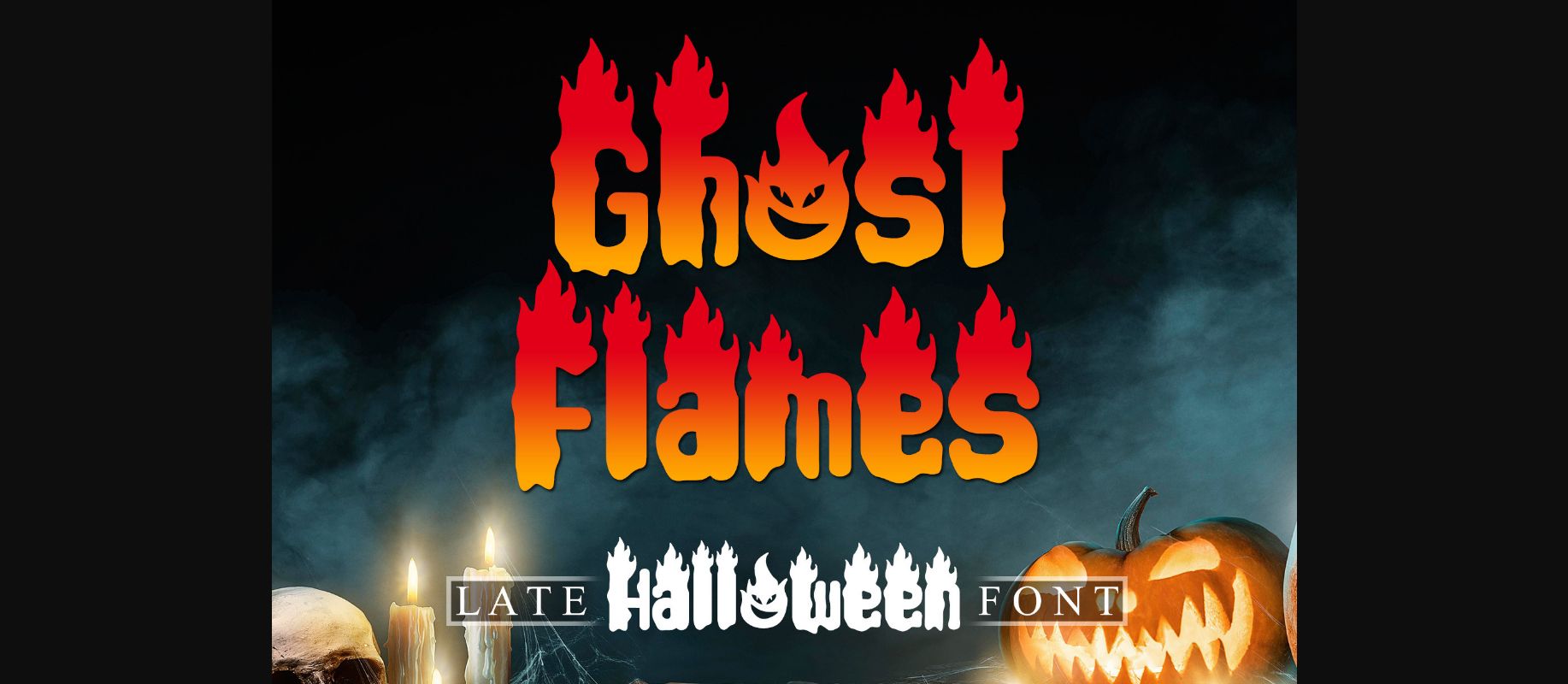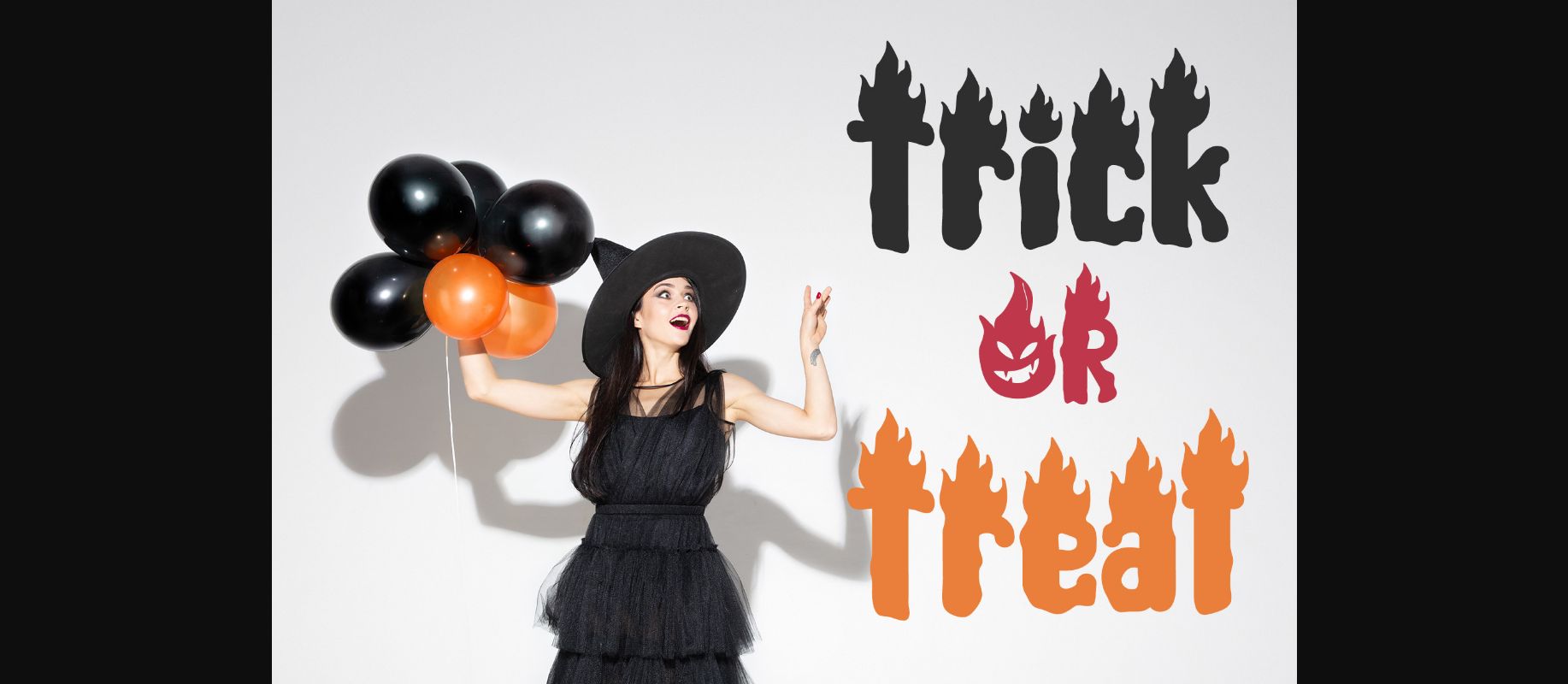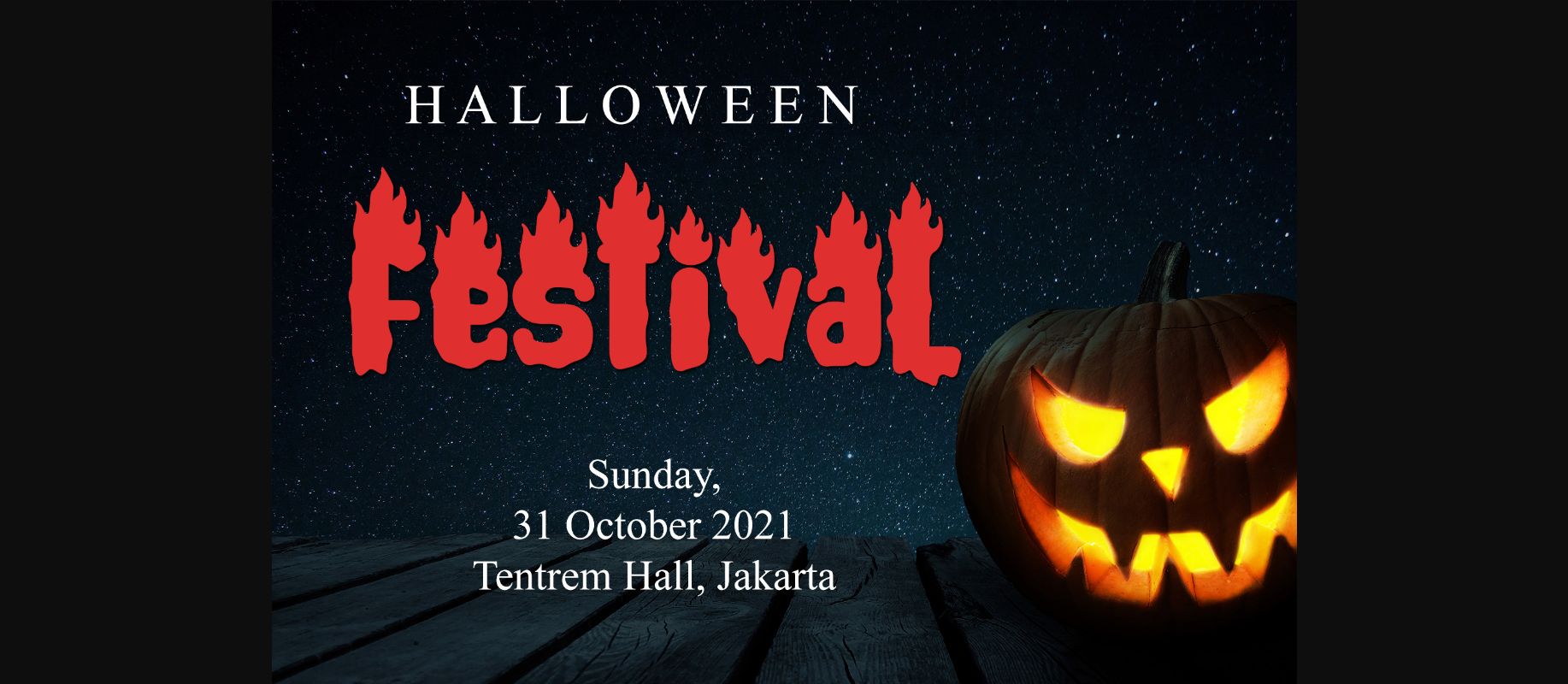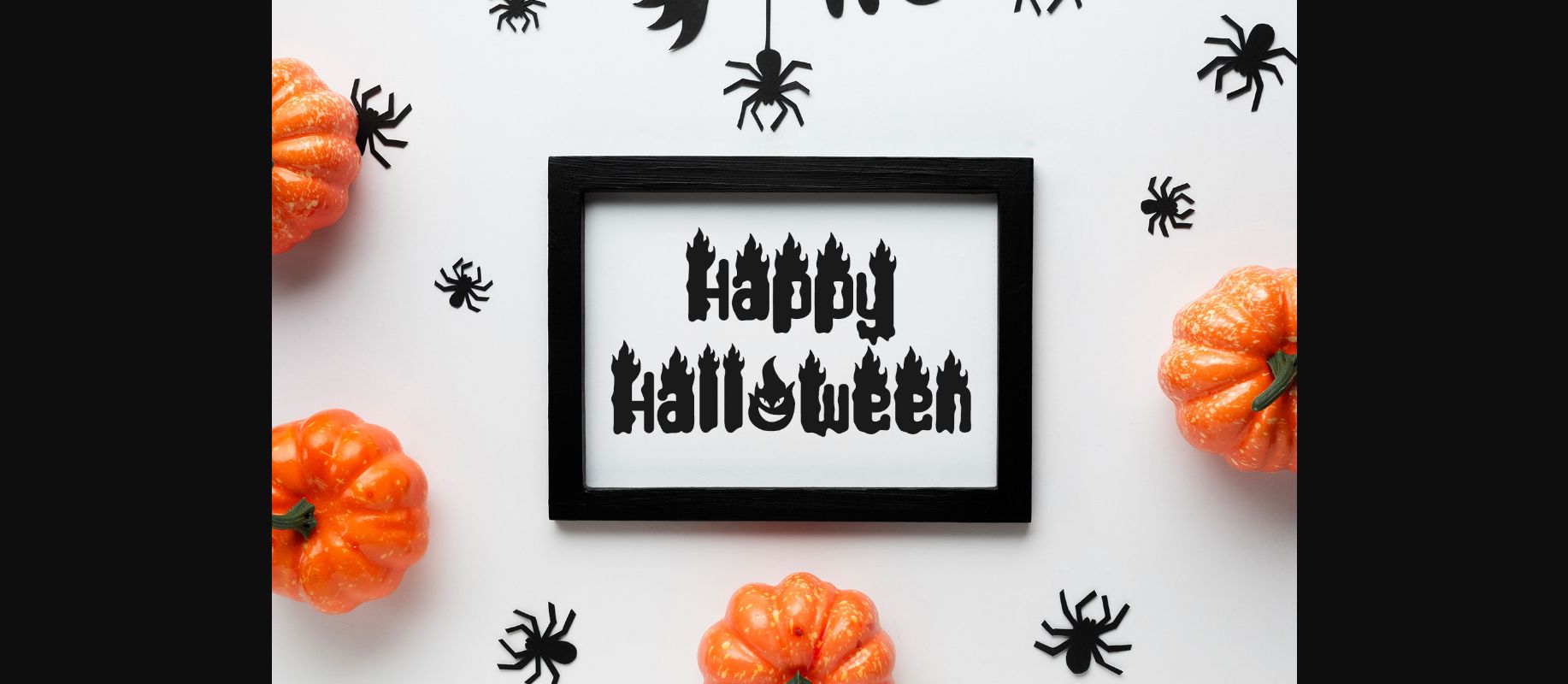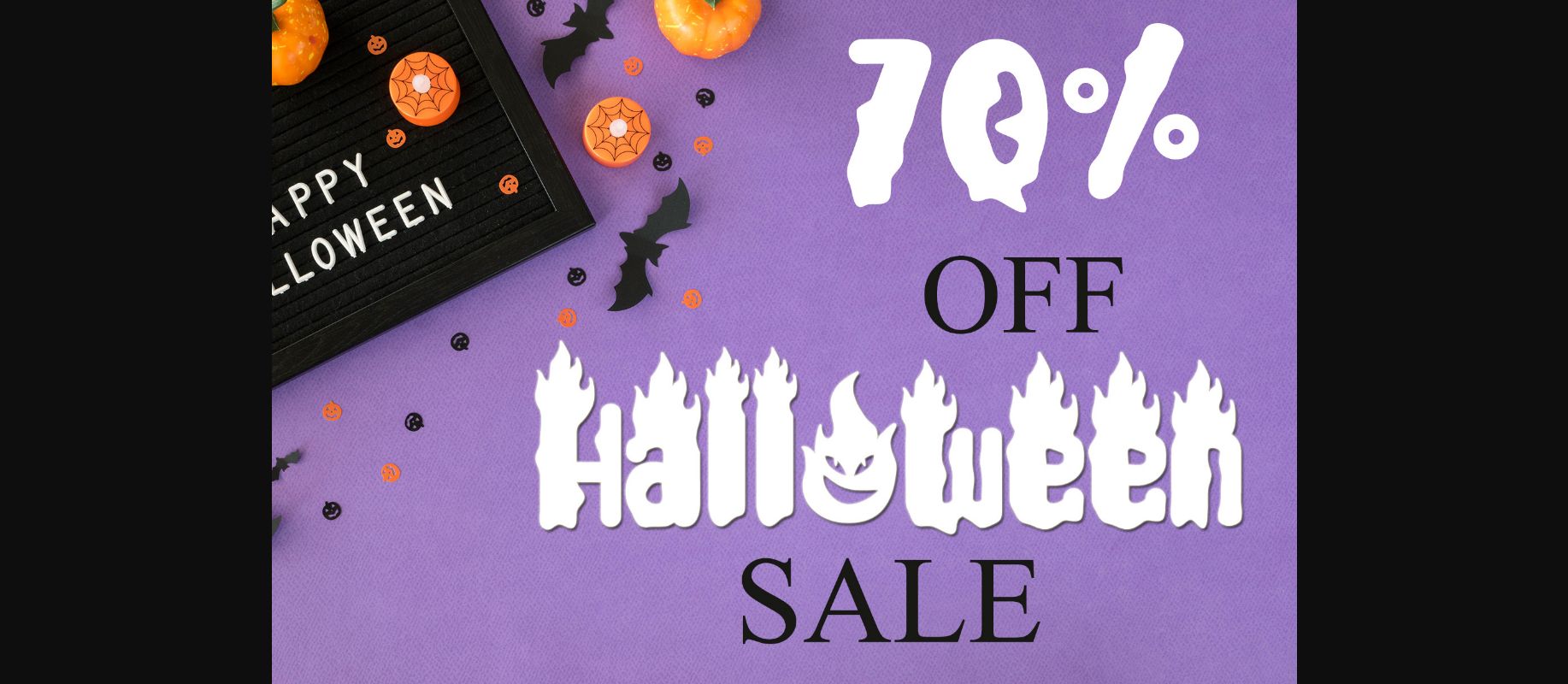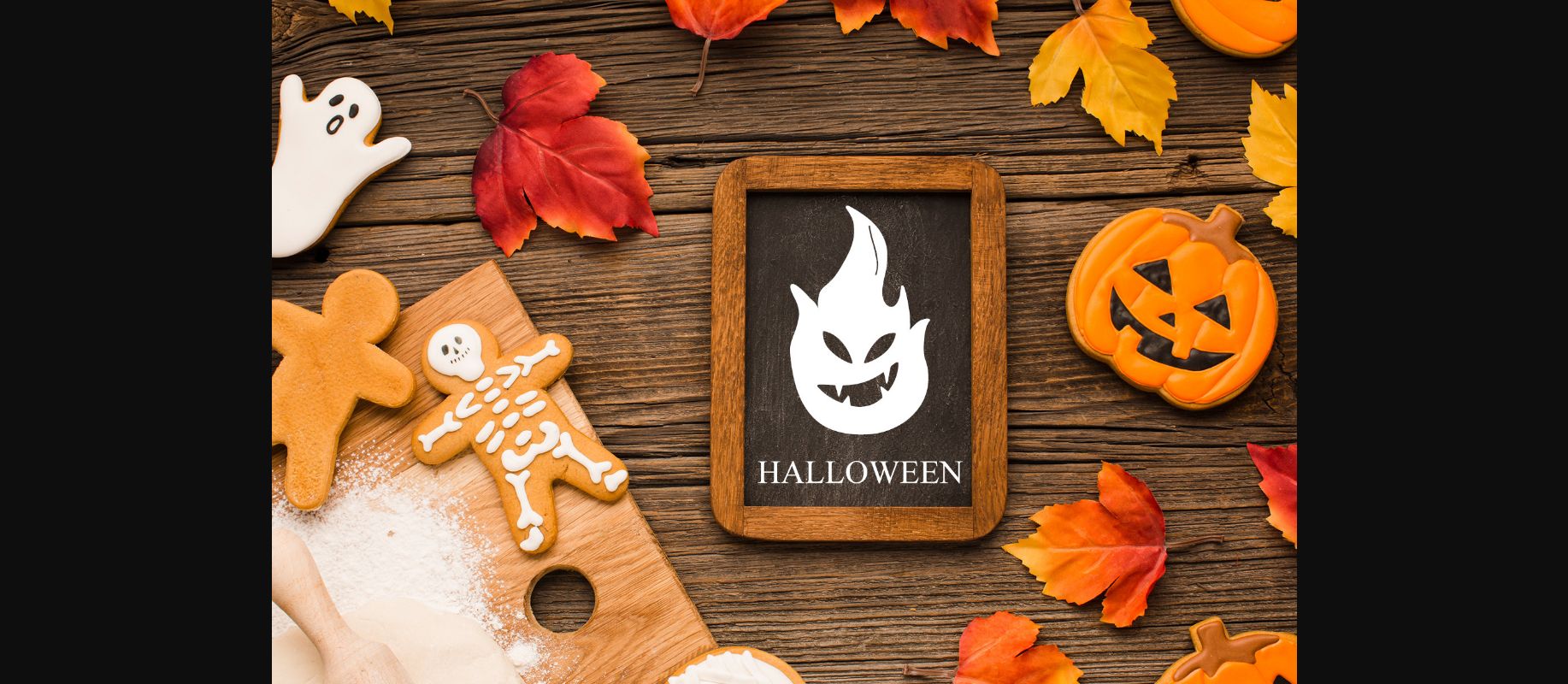
Ghost Flames Font
About Ghost Flames Font
Ghost Flames is a bold and spooky decorative font. Add it to your Halloween crafts, horror movie posters, t-shirts and anything else that requires a spectacular look.